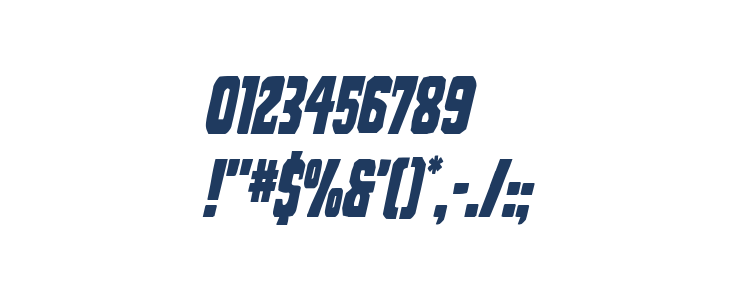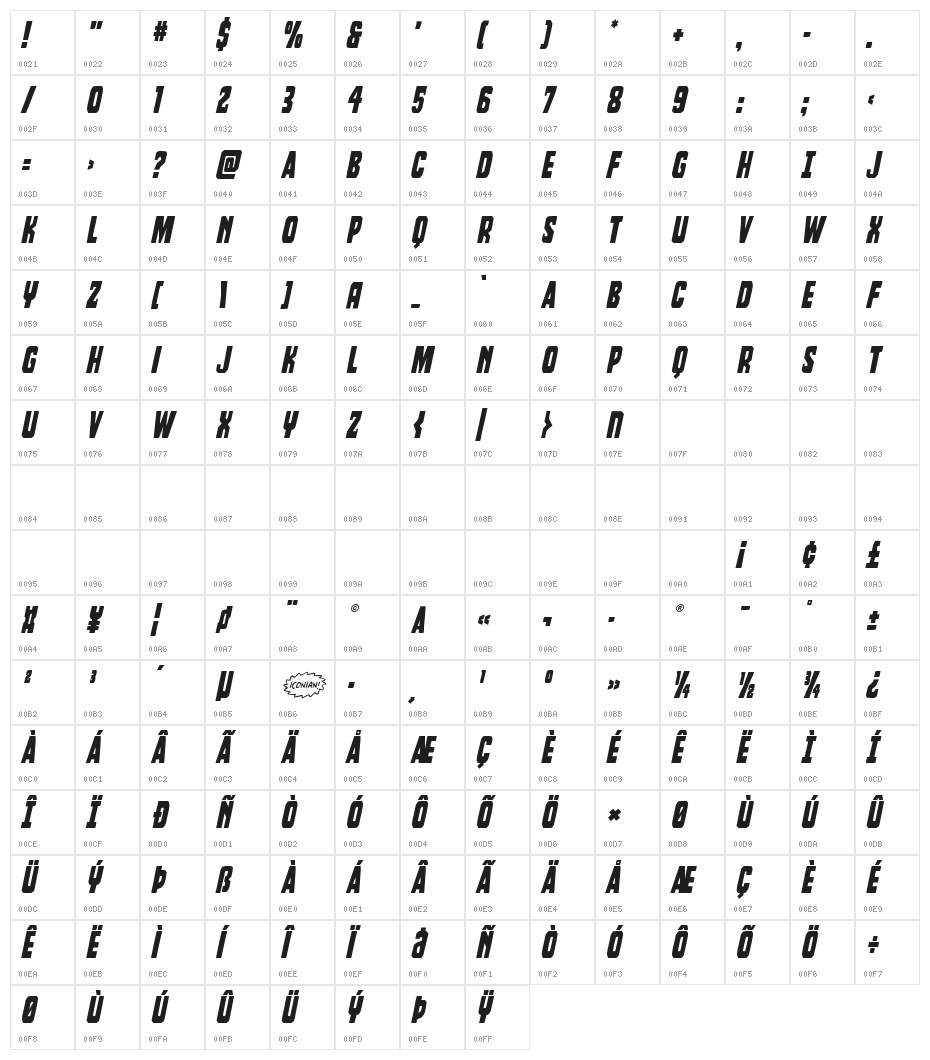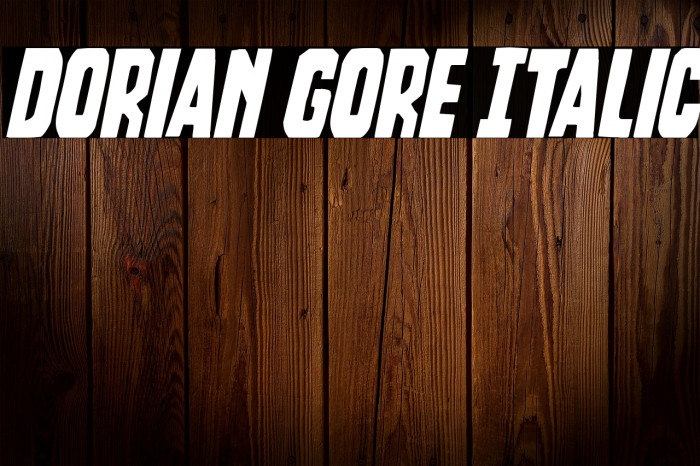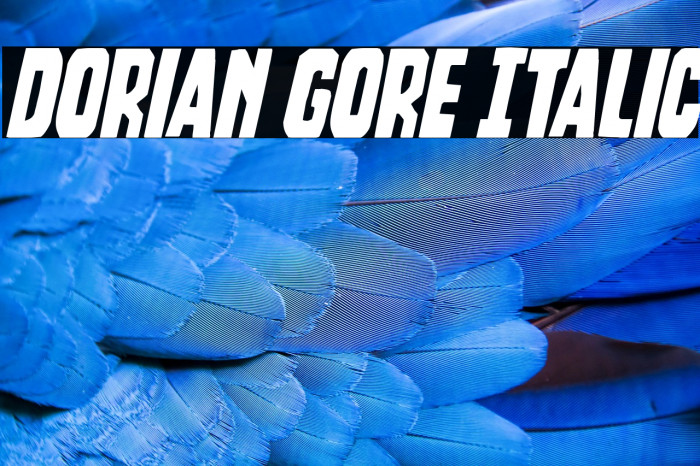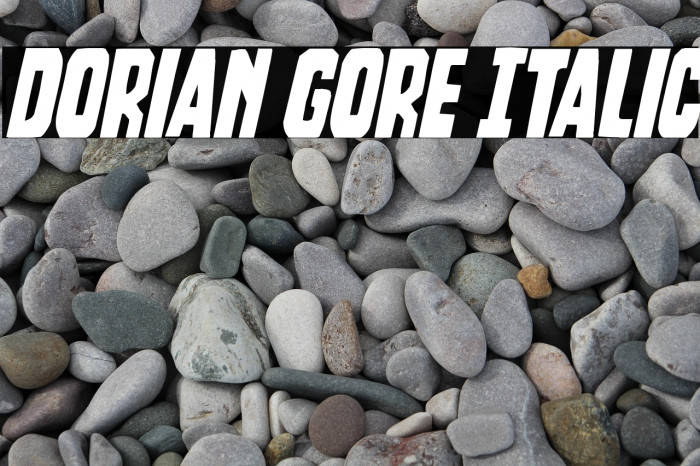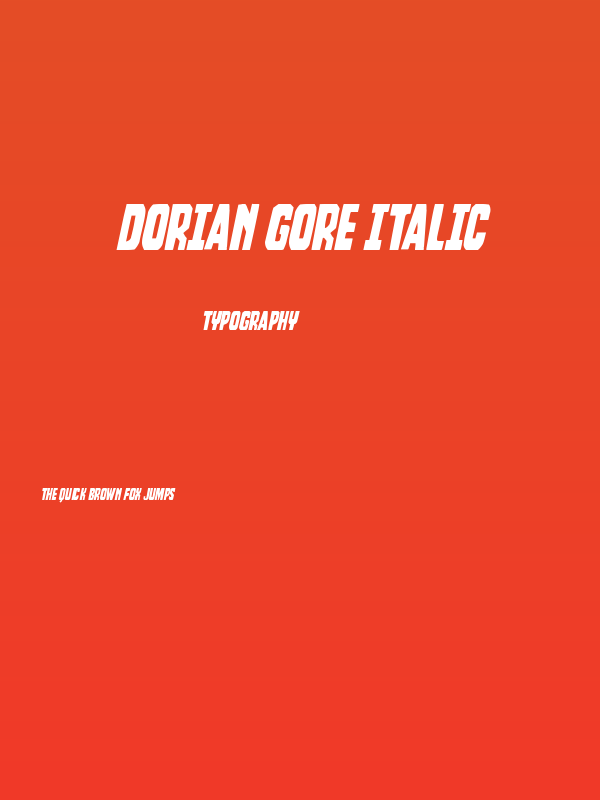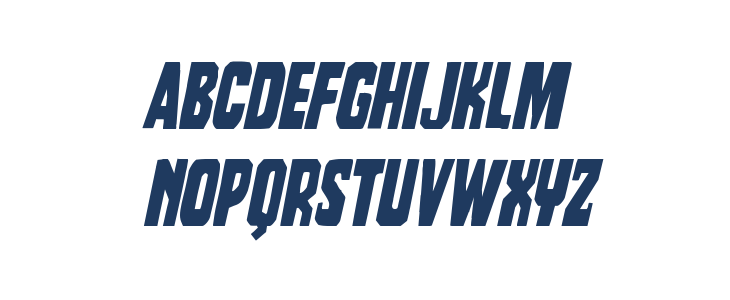
Dorian Gore Italic Font
Dorian Gore Italic Description
This font features a bold and dynamic design with an italic slant, giving it a sense of movement and energy. The characters are thick and robust, with a slightly condensed appearance that enhances their impact. The angular cuts and sharp edges contribute to a modern and edgy aesthetic, making it suitable for attention-grabbing headlines and titles. The uppercase and lowercase letters maintain a consistent style, while the numerals and special characters are designed to complement the overall look. This font's strong presence makes it ideal for projects that require a bold statement.
| Proposed Projects | Ideal for sports branding, posters, and dynamic headlines. |